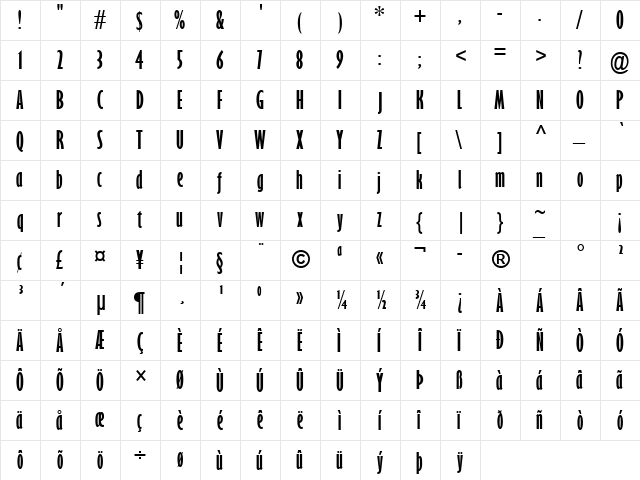
Gill Sans MT Ext Condensed Bold Bold Font Preview
Design Context for Gill Sans MT Ext Condensed Bold Typeface
Gill Sans MT Ext Condensed Bold offers clean, dependable letterforms without strong stylistic allegiance, making it a practical choice for designers who need flexibility. The heavy weight commands attention and anchors typographic hierarchies. Its narrow stance lets it pack a punch even in space-constrained designs.